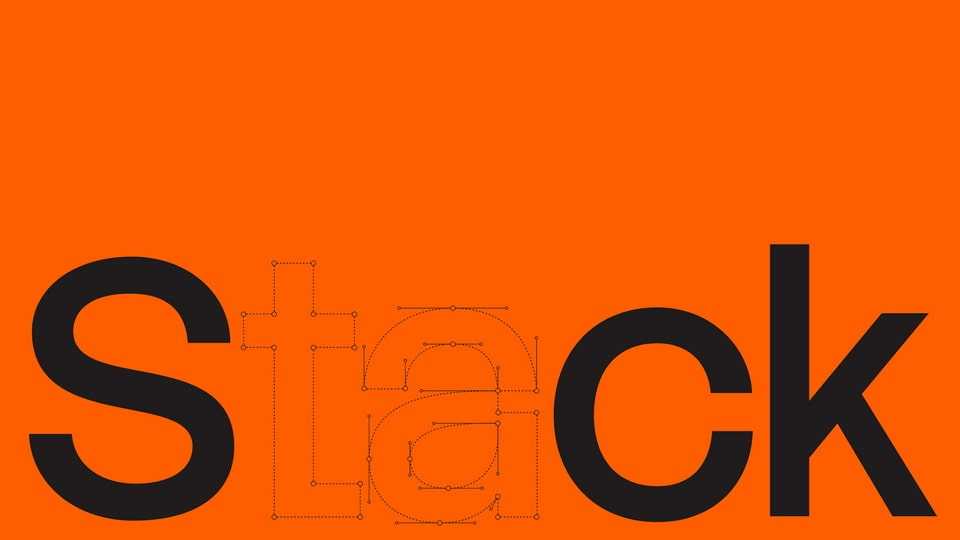
Download Stack Sans font, a sans serif typeface rooted in modernist inspiration, striking a balance between timelessness and innovation. Its distinctive notched detailing, inspired by the building process, creates a recognizable signature that is unique to Stack Sans.
Designer: Koto Studio